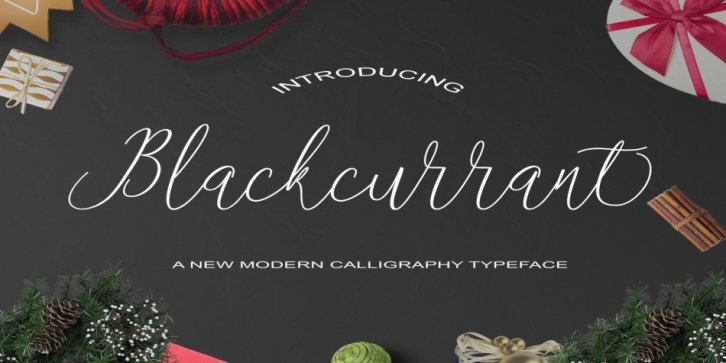
Blackcurrant is a script and modern calligraphy font published by pollem.Co.
Blackcurrant Script is a stylish calligraphy font that features a varying baseline, smooth line, classic and an elegant touch. It can be used for various purposes such as headings, signature, logos, wedding invitation, t-shirt, letterhead, signage, lable, news, posters, badges etc.
Blackcurrant Script features 423+ glyphs and 204 alternate characters. This includes initial and terminal letters, alternates, ligatures and multiple language support.
The Features of this fonts are:
* Standart ligatures
* Stylistic Alternates
* PUA Unicode (Private Use Areas)
* Swashes
Font Family: Blackcurrant Script